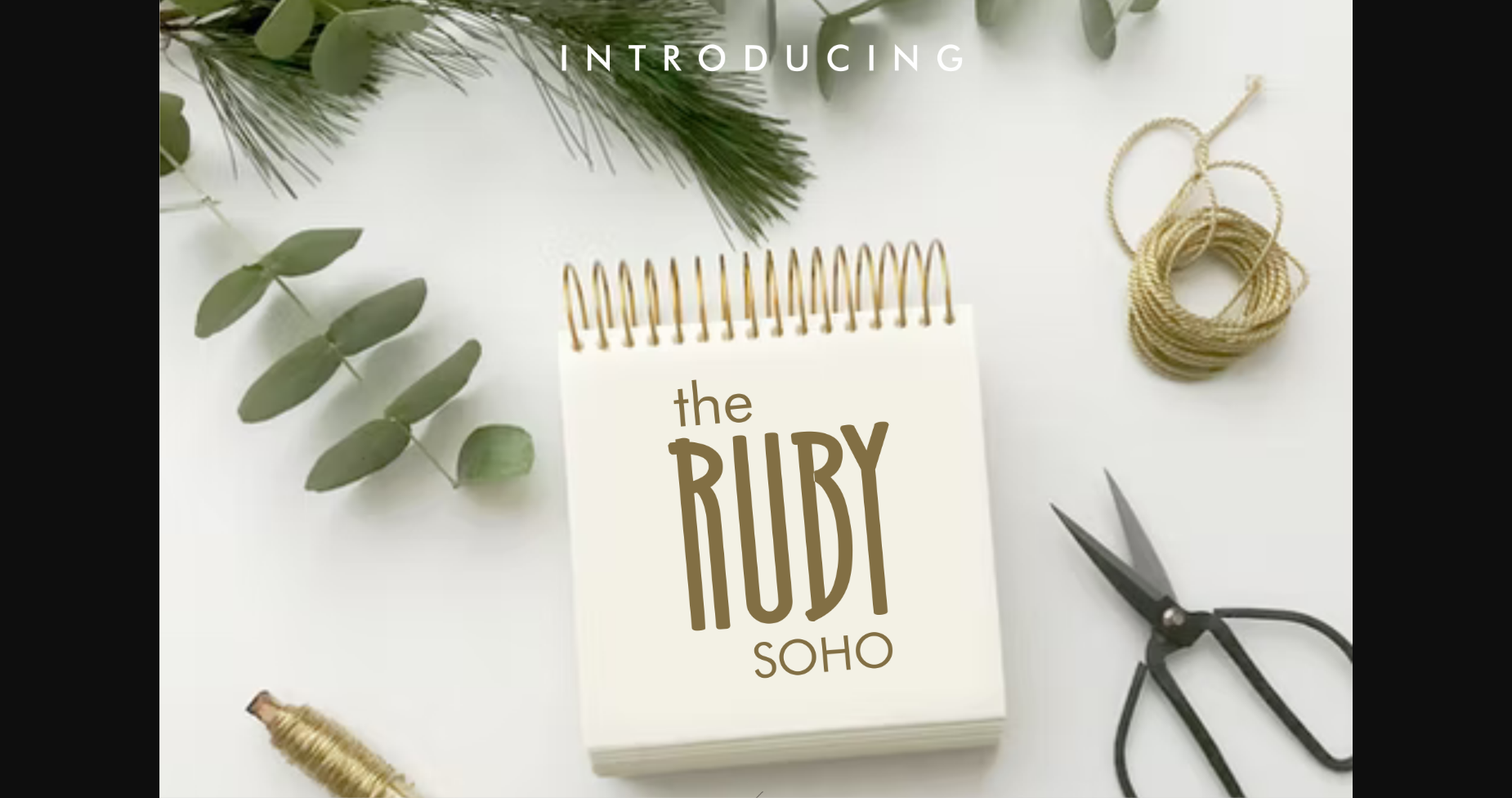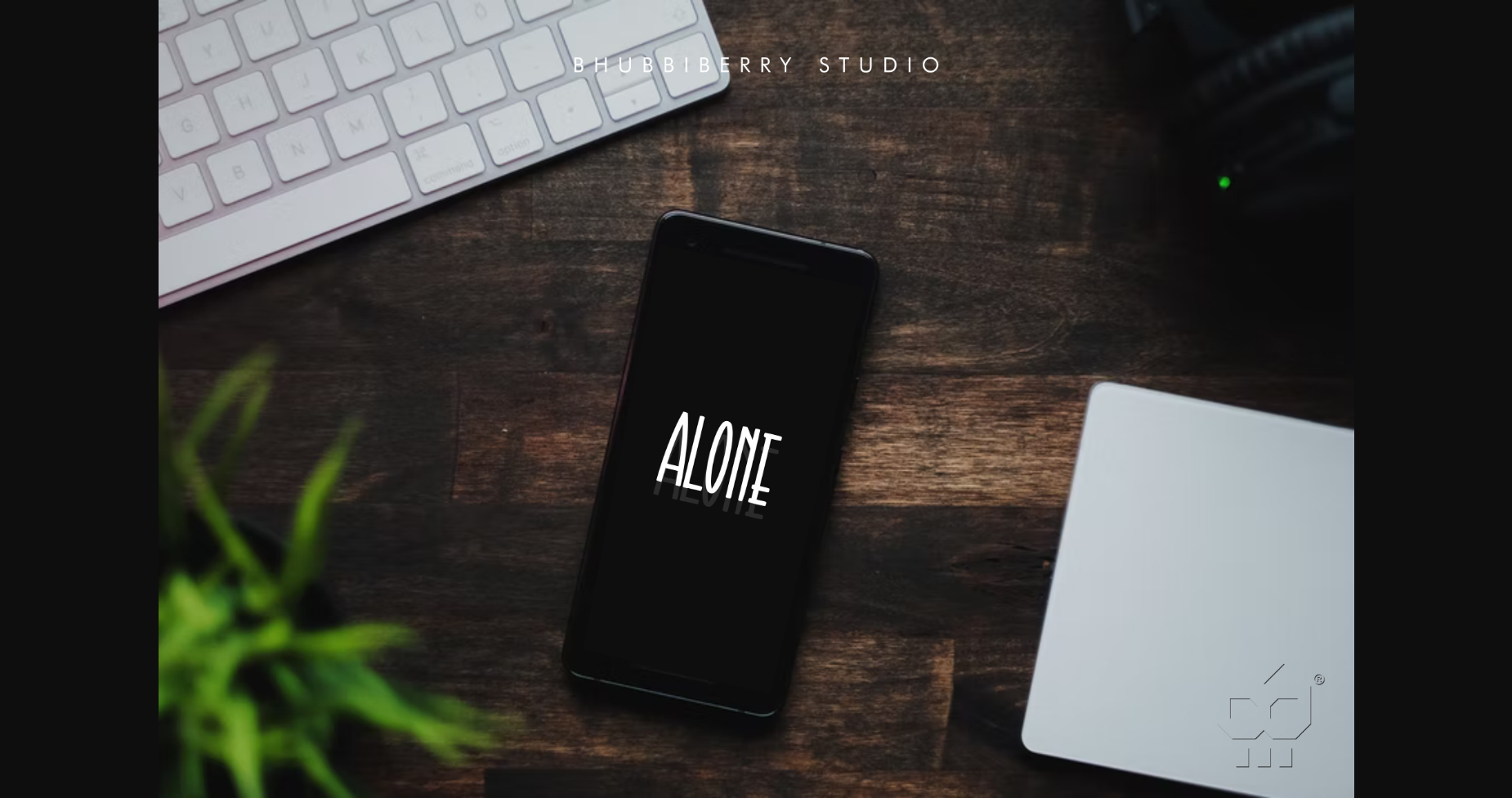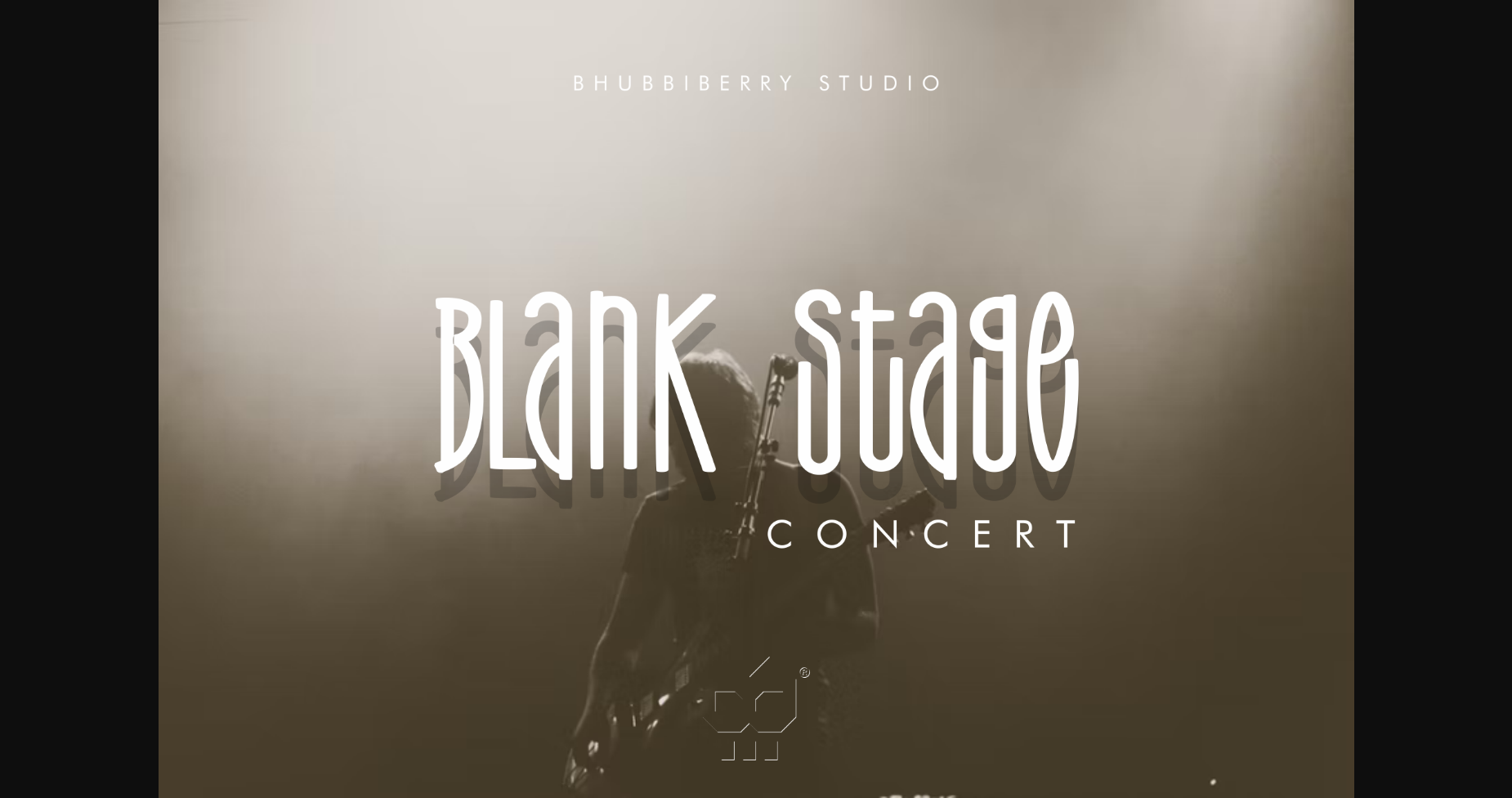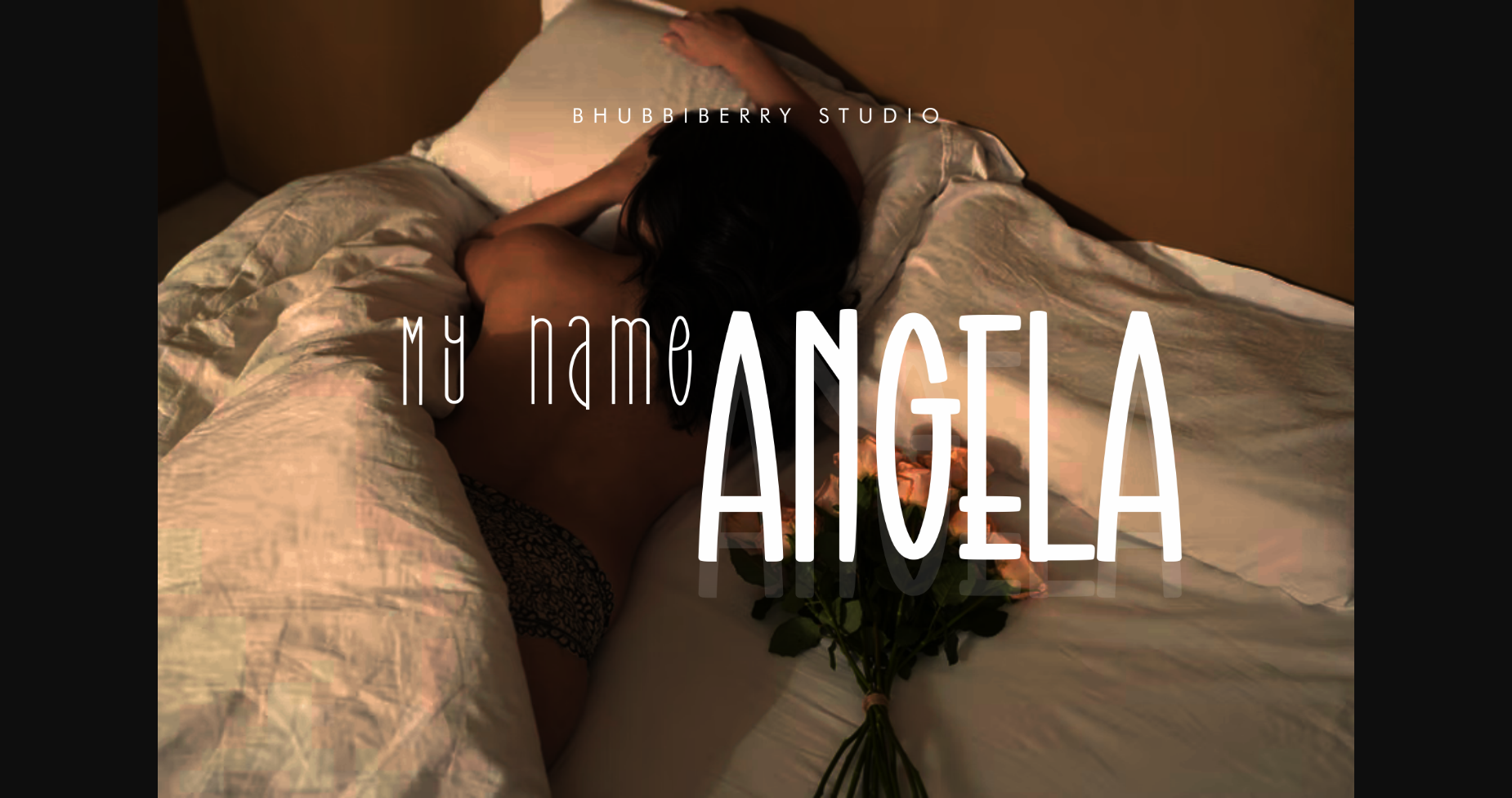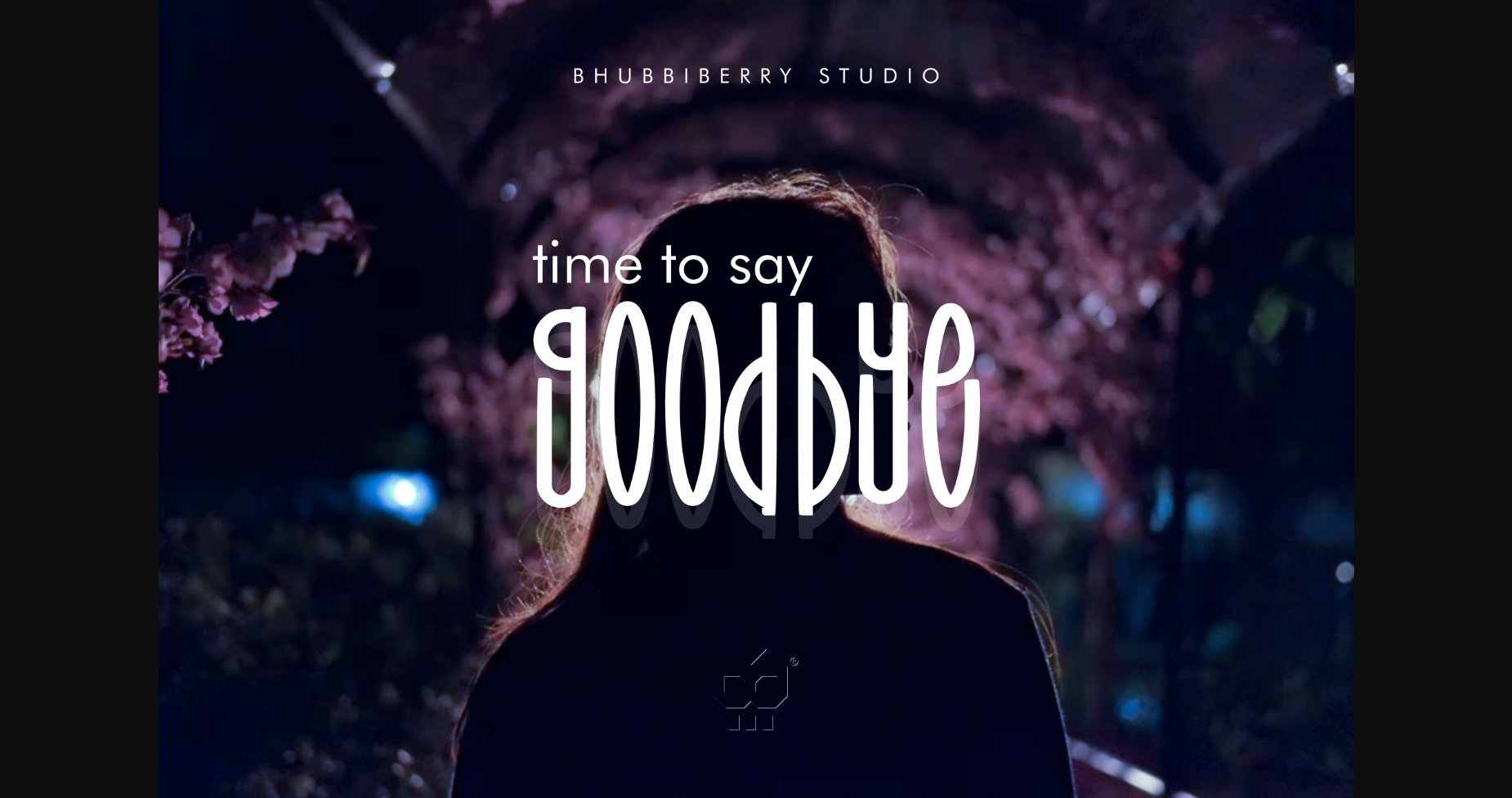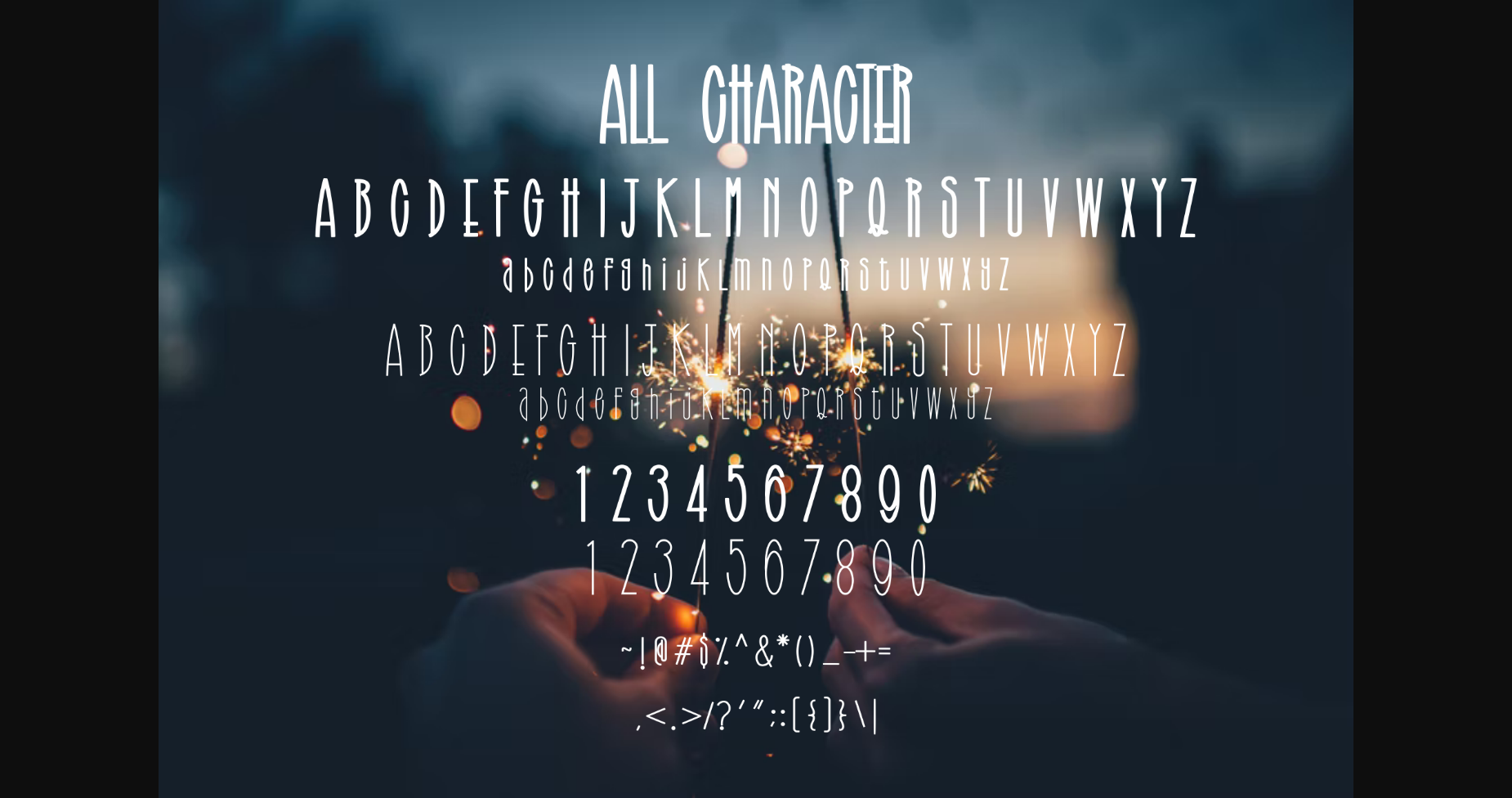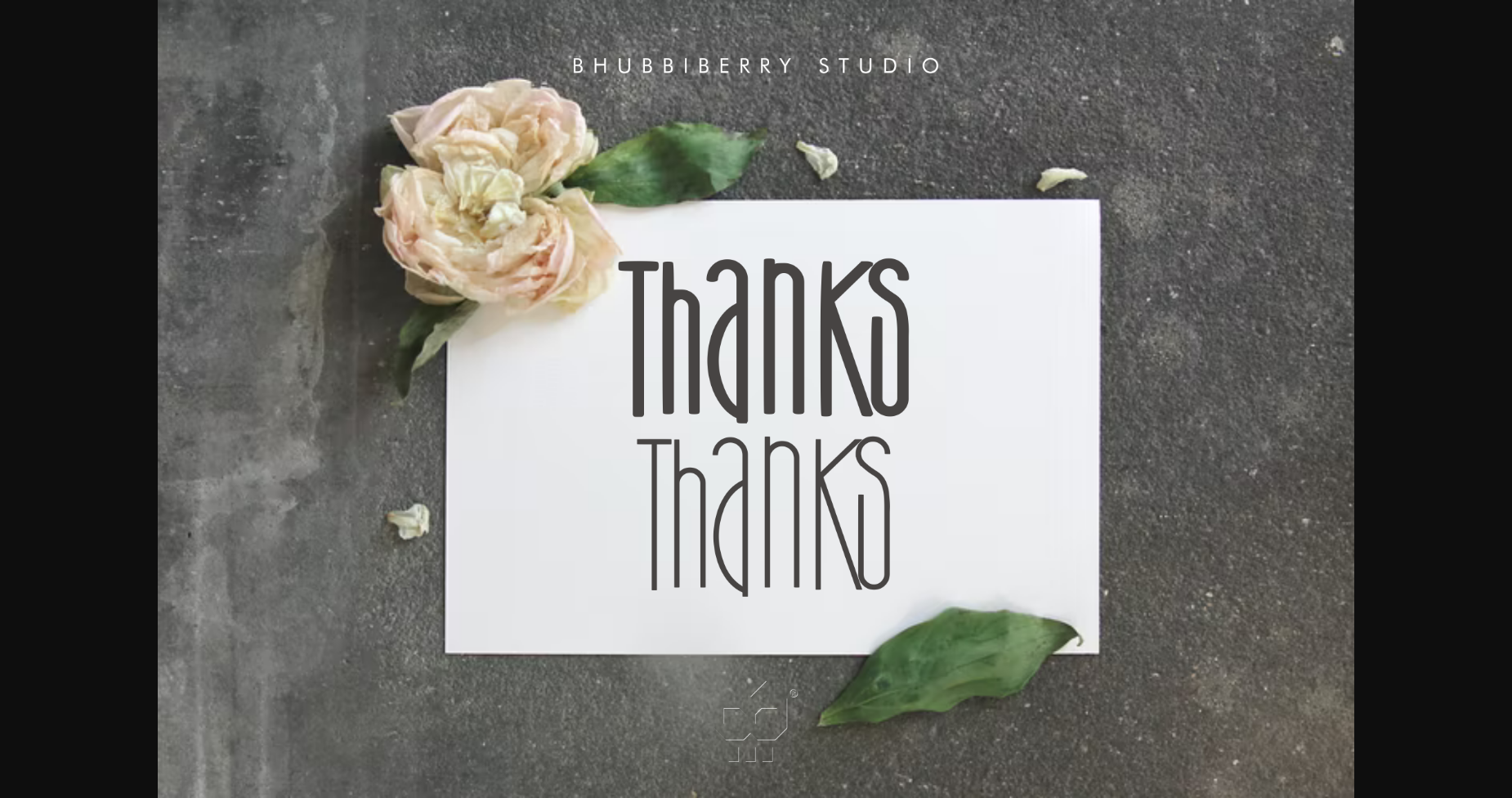
HomeSans Serif FontsRuby Font Sans Serif Fonts Ruby Font FacebookXPinterestWhatsApp 1 of 9 ... Ruby Font Poster 2... Ruby Font Poster 3... Ruby Font Poster 4... Ruby Font Poster 5... Ruby Font Poster 6... Ruby Font Poster 7... Ruby Font Poster 8... Ruby Font Poster 9... About Ruby Font Ruby is a cool and adaptable sans serif font. It is suitable for book texts, documentation, business reports, business correspondence, magazines, newspapers, posters, advertisements, multimedia, and corporate design. DOWNLOAD NOW People also explored Giraldine Font Piekos FX Rough BB Brighton Font Darmia Font Business Font Permanent Marker Pro Denalova Font Vanilla White Font Swirly Font 302 0 TagsRubyRuby Font Previous articleHellosin FontNext articleOrbiga Font LEAVE A REPLY Cancel reply Comment: Please enter your comment! Name:* Please enter your name here Email:* You have entered an incorrect email address! Please enter your email address here Website: Save my name, email, and website in this browser for the next time I comment. Personal Use Free Dead Block Personal Use Free Read more about this font Cline Personal Use Free Read more about this font Hello Holiday Personal Use Free Read more about this font Jabirah Personal Use Free Read more about this font BLOG Free vs Paid Fonts: Why Investing in Premium Fonts Is Worth It Free vs Paid Fonts: Why Premium Fonts Are Worth It in 2025 The debate of free vs paid fonts continues in the design world. While... Modern Sans-Serif Fonts That Brands Love in 2025 Using Fonts in Digital Marketing: Tips to Strengthen Your Brand Identity Free Fonts Risk: Why Free Fonts Can Be Dangerous for Designers